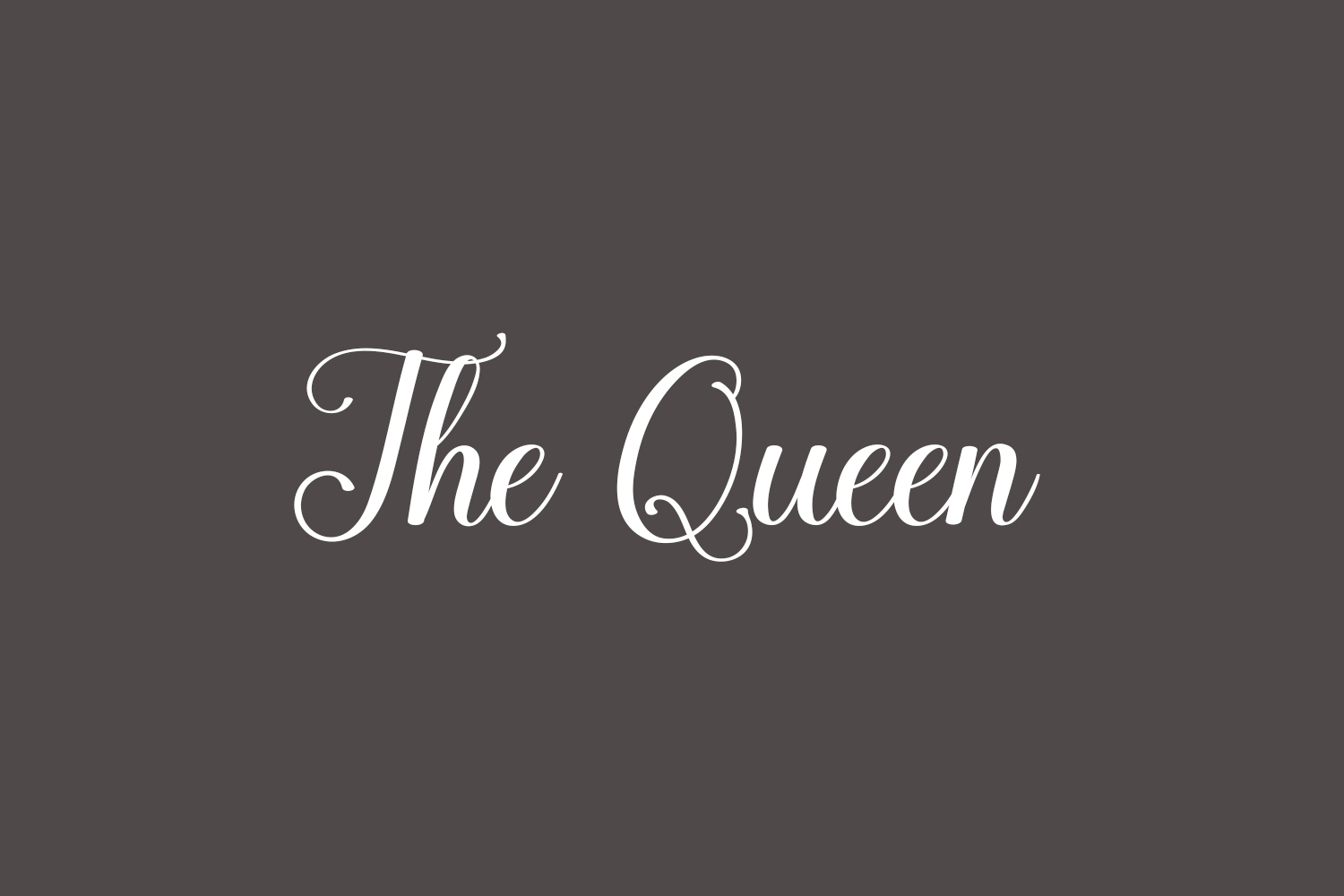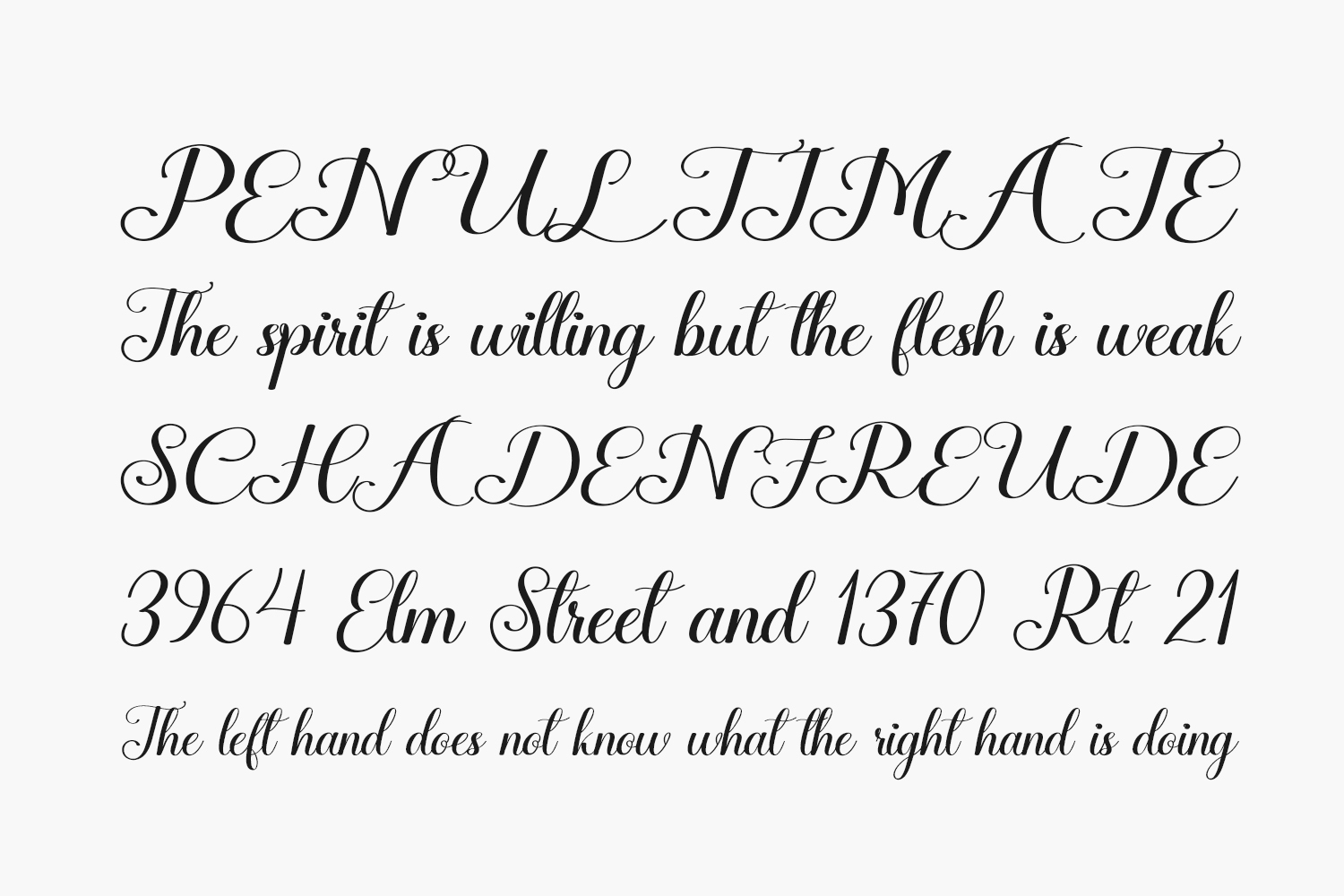
Queen Free Font is a fashionable script font. It is neatly crafted and highly detailed. Whatever the topic, The Queen will be a wonderful asset to your fonts’ library, as it has the potential to enhance any creation.